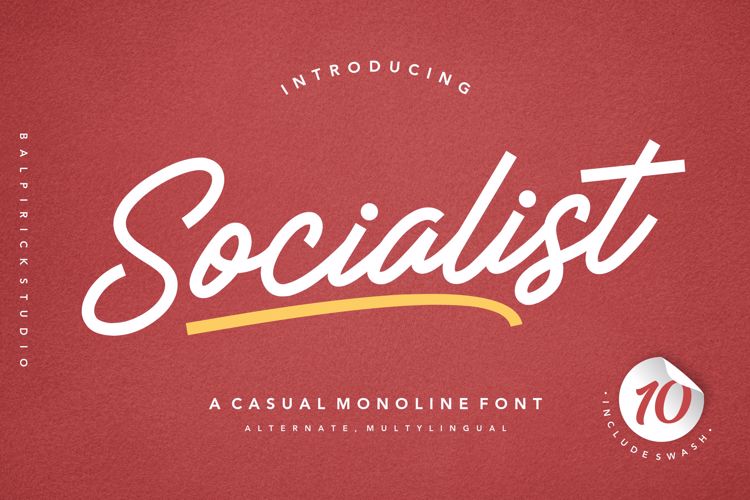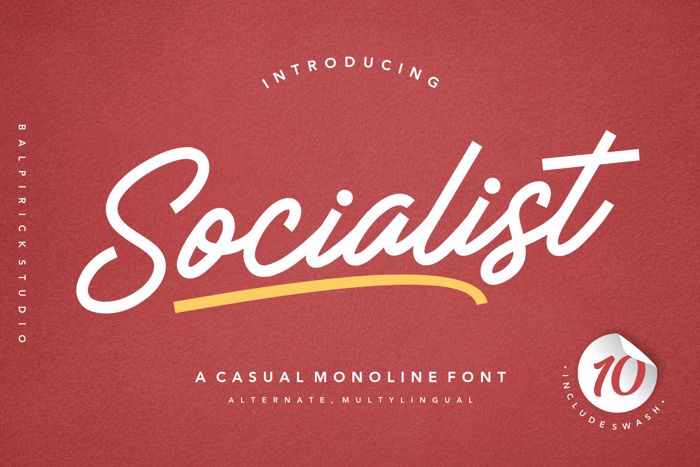
Socialist Font
Proudly Present, Socialist Font.
Socialist is a Casual Monoline Font.
Socialist is perfect for product packaging, logo, invitation, stationery, branding project, label, photography, watermark, megazine, social media post, wedding, or just used to express words above the background.